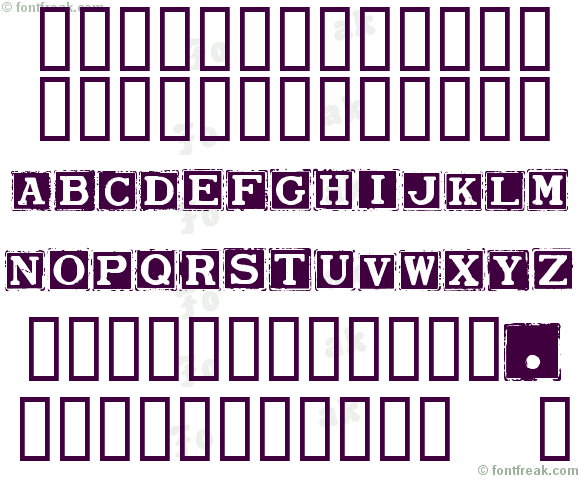
Smargana Dealing
Smargana Wakes
About Smagana
Introducing the Smagana font by Channelzero!, a captivating serif typeface that blends elegance and modernity. Designed with a unique flair, Smagana features a balanced stroke weight, offering a delightful contrast that enhances readability while maintaining character. The font showcases a refined aesthetic with its slightly elongated serifs, creating a sophisticated appeal that is perfect for a variety of applications. The generous spacing between letters adds to its legibility, making it a versatile choice for both digital and print media.
Smagana shines in numerous use cases. Its elegant curves and classic appeal make it an excellent choice for wedding invitations, where it can evoke romance and charm. Graphic designers will find it ideal for creating eye-catching movie posters, where the font can capture the essence of cinematic storytelling. Additionally, Smagana is well-suited for restaurant menus, helping to convey a sense of style and sophistication that enhances the dining experience. Small business owners can also leverage this font for branding materials, ensuring their promotional content stands out with a touch of class.
The target audience for the Smagana font includes graphic designers, small business owners, content creators, and anyone looking to elevate their visual communications with a touch of elegance. Its unique blend of classic serif characteristics, combined with modern nuances, makes it a versatile choice for various design projects.